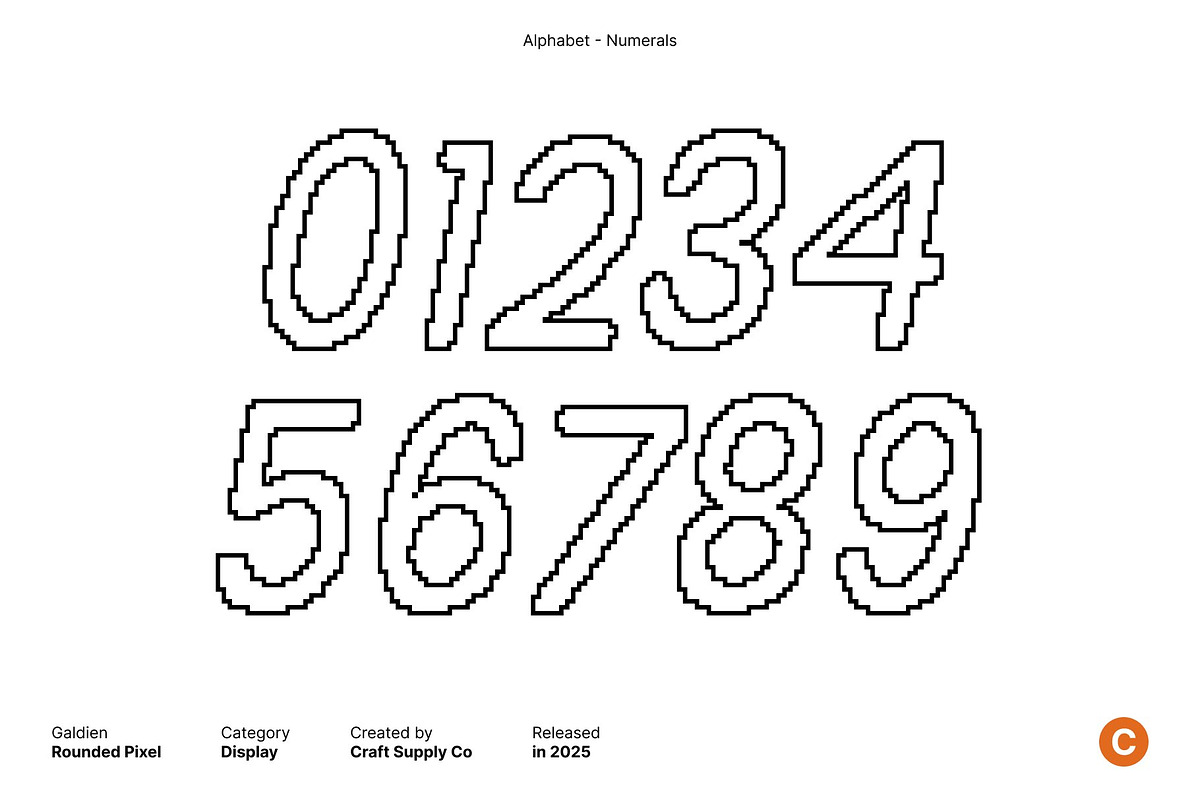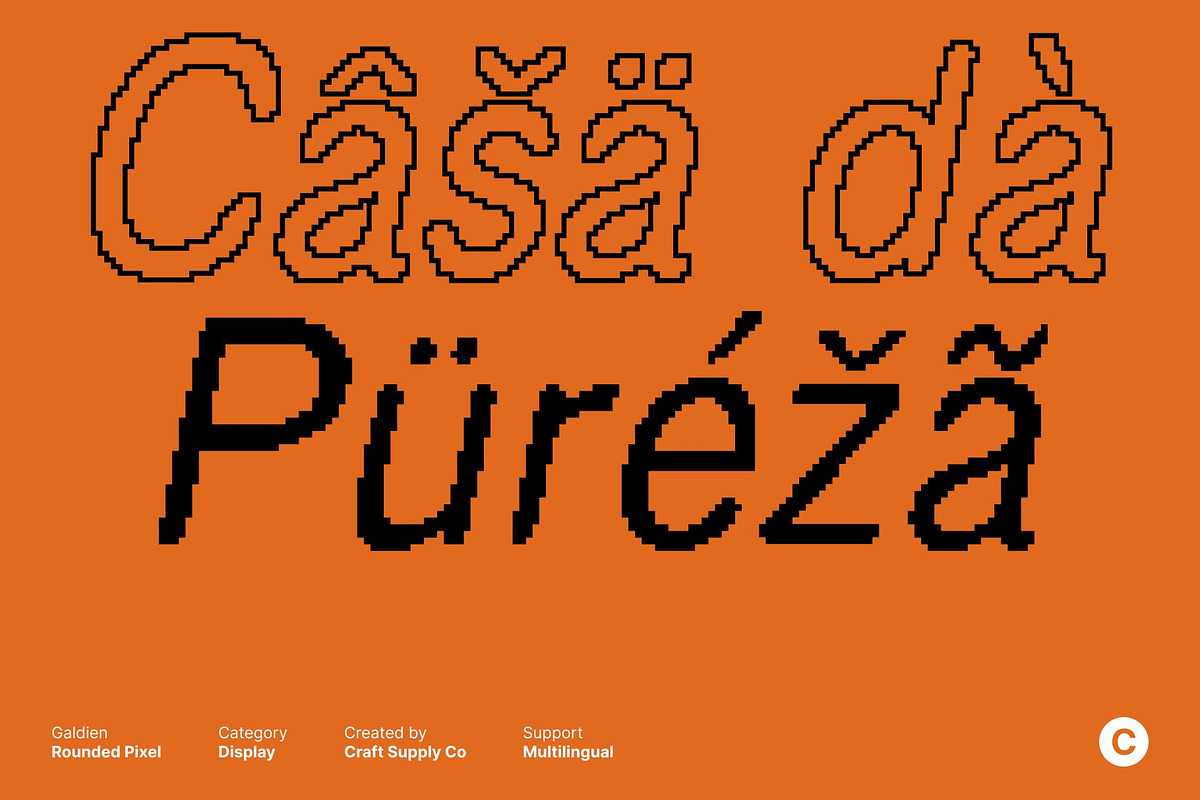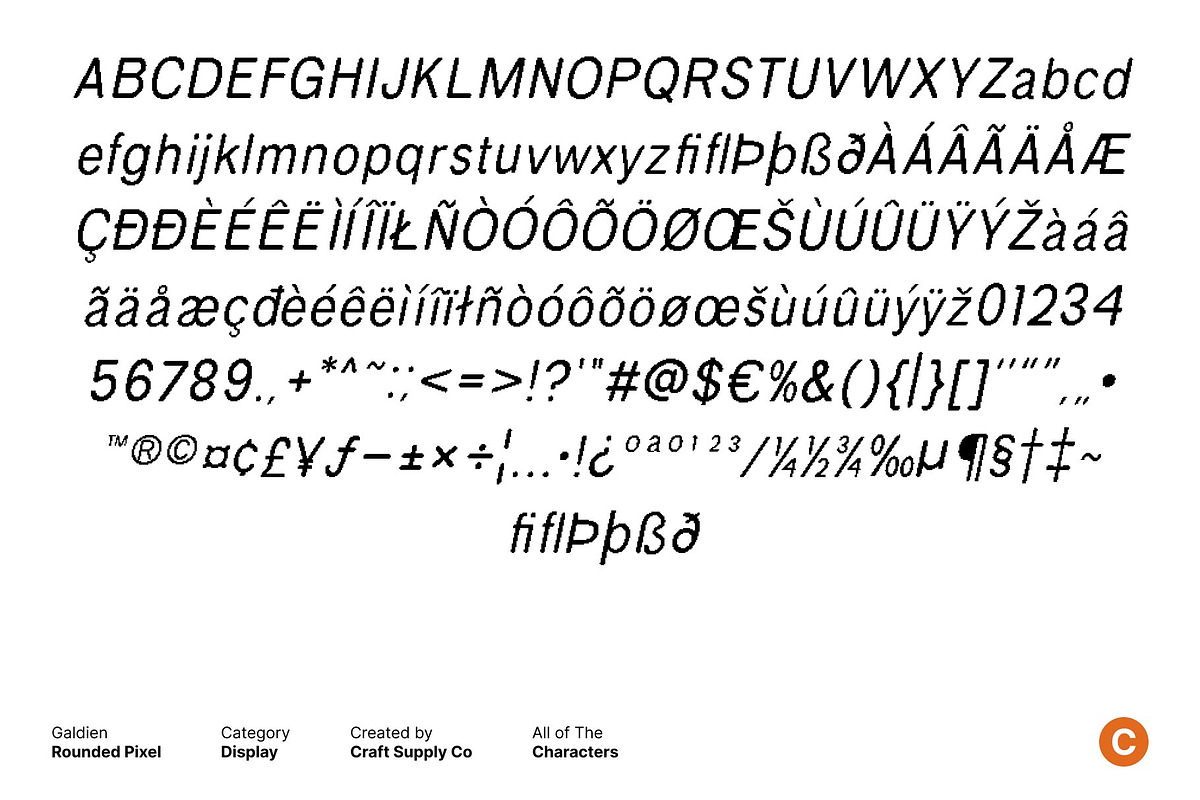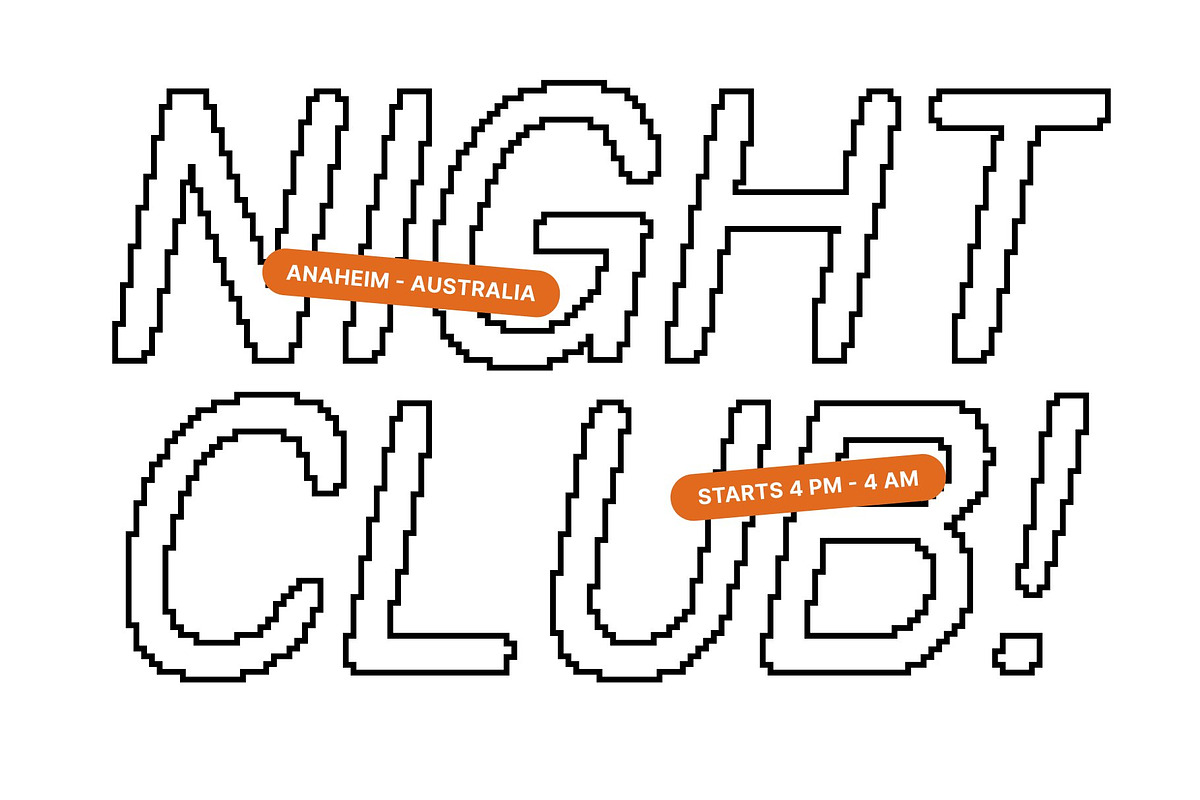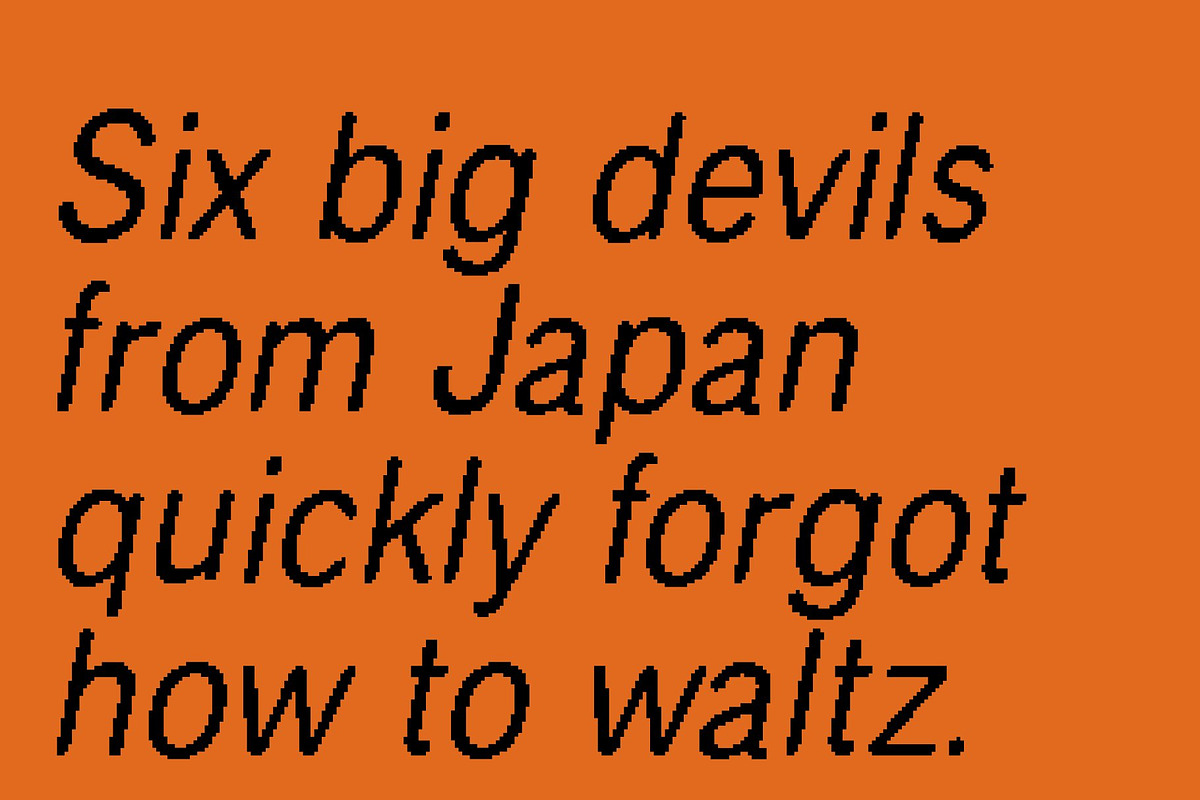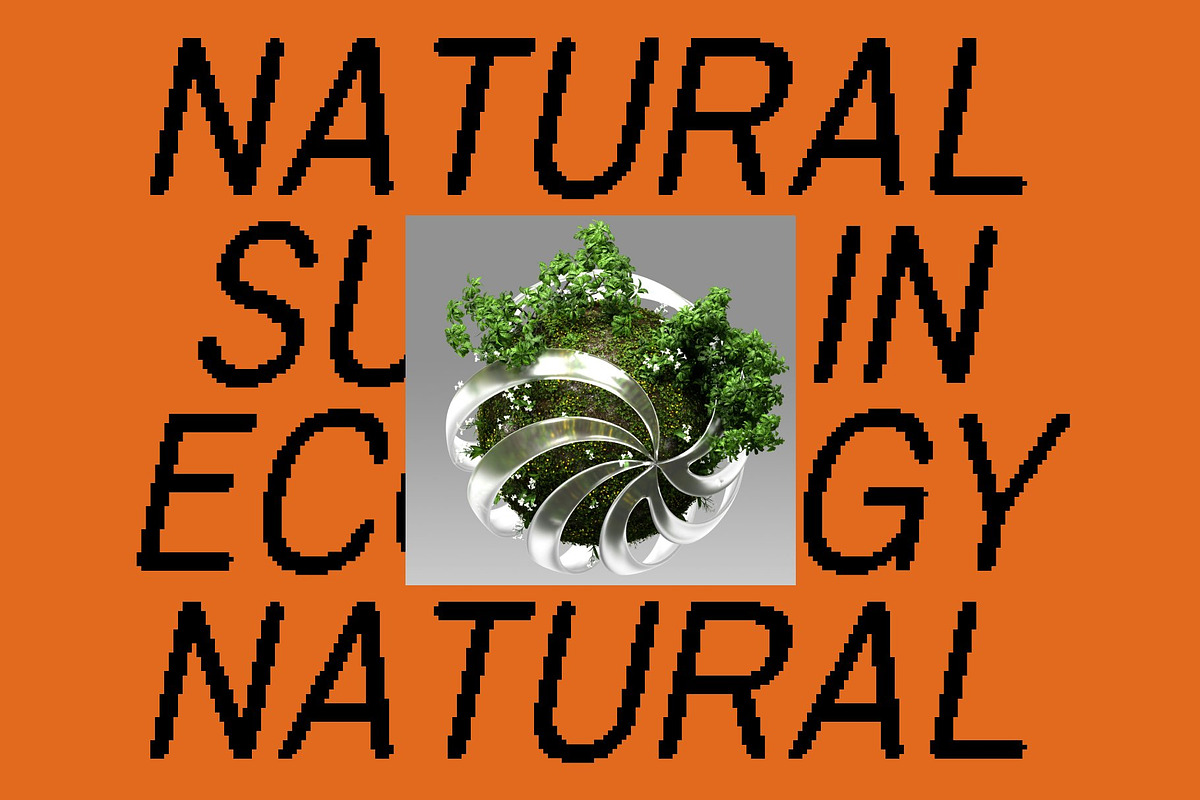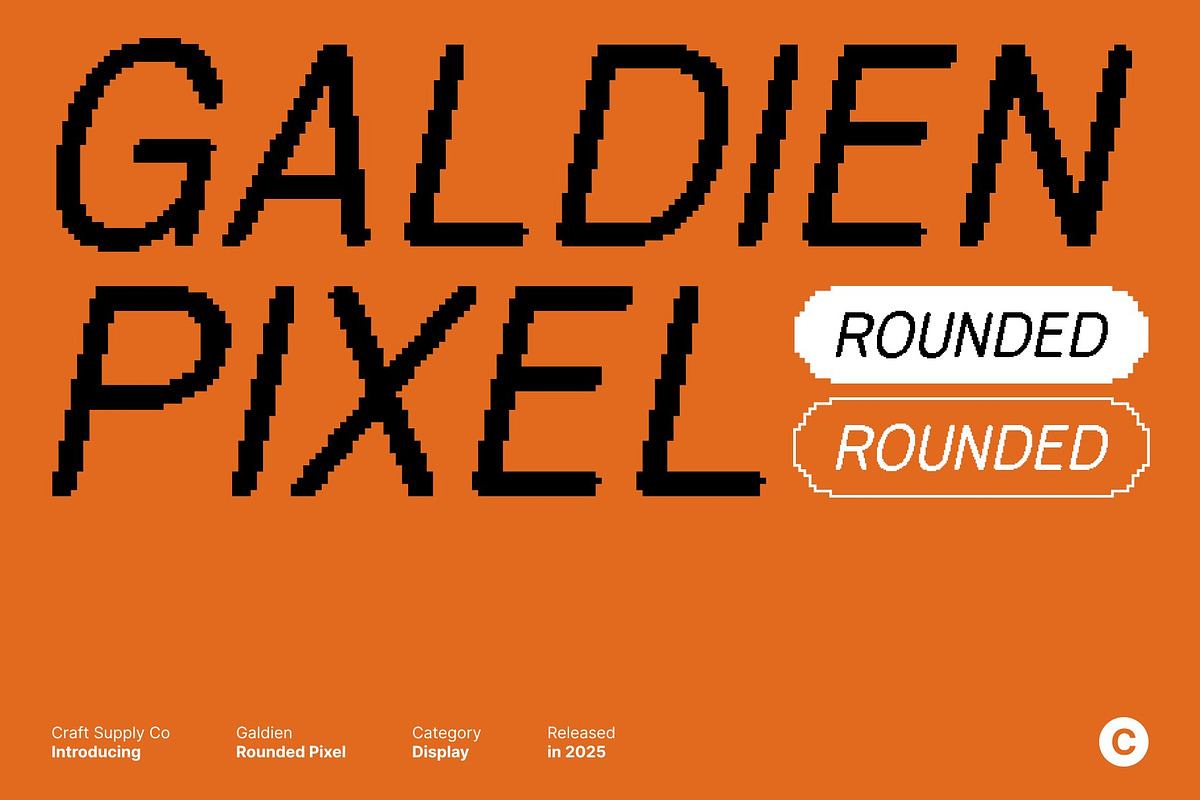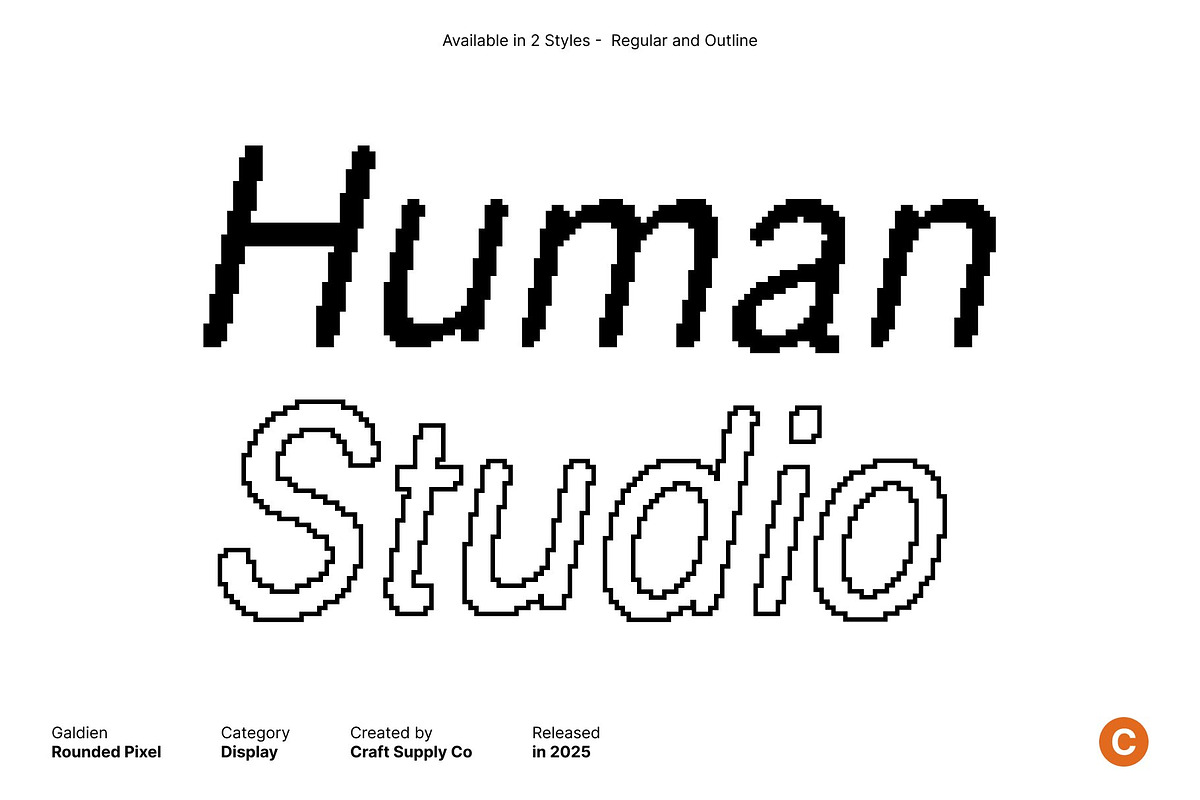
Galdien Rounded Pixel
Galdien Rounded Pixel – Retro Sans Serif with 8-Bit Digital Character
Distinctive Pixel Aesthetic Inspired by Early Digital Era This is a sans serif font crafted with a charming pixel style that instantly evokes the iconic 8-bit era. Its rounded forms soften the digital edges, creating a friendly yet distinctly retro feel. The font captures the essence of old computer graphics, vintage consoles, and early digital interfaces, making it a perfect tribute to classic technology.
Nostalgic 8-Bit Energy for Retro-Themed Designs The pixel styling adds a unique layer of nostalgia, mimicking the visual texture of early video games and low-resolution screens. This playful detail brings authenticity and personality, allowing your designs to channel the charm of retro gaming and vintage tech culture.
Perfect for Games, Interfaces, and Retro Branding Ideal for retro game designs, UI elements, nostalgia-themed websites, posters, unique logos, t-shirts, and infographics, shines in creative projects that embrace early digital aesthetics. Its clean sans serif foundation ensures readability, while the pixel elements provide standout visual character.
Classic, Playful, and Unmistakably Digital This font blends modern structure with vintage digital flavor, offering a typeface that feels both nostalgic and fresh. Whether you’re building a game interface, crafting retro branding, or designing bold visual content, this font delivers a playful and timeless look rooted in the classic era of pixel art.
- Galdien Rounded Pixel Regular
- Galdien Rounded Pixel Outline